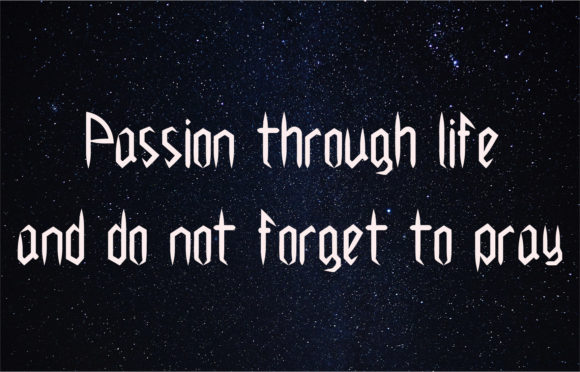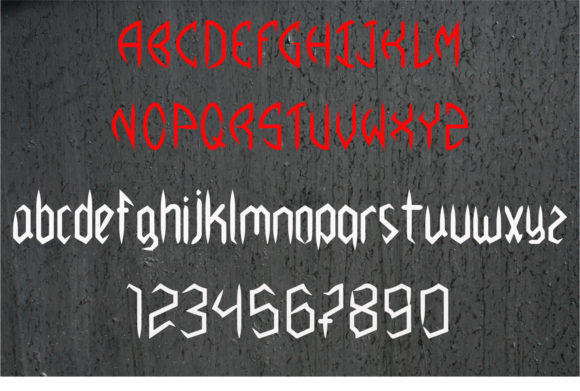
Introduction to Snap Z Font
Have you ever been working on a creative project, pouring your heart and soul into a design, only to realize you’re missing that one special element to make it truly pop? For designers, that moment of clarity can be a game-changer. And that’s exactly what the Snap Z Font is designed to do – add a dash of personality to your next flyer, logo, poster, or game.
As a versatile display font, Snap Z Font is the perfect design resource for any creative project. With its high-quality, transparent background, you can rest assured that your designs will stand out from the crowd. Whether you’re working on a book cover, a marketing campaign, or a fun project for kids, this font is sure to bring a smile to your face and a touch of whimsy to your designs.
Key Features of Snap Z Font
- High-quality font with a unique, creative design perfect for various projects
- Features a transparent background, making it ideal for use on various backgrounds and designs
- Designed with a high resolution of 300 DPI, ensuring crisp and clear text display
- Includes a comprehensive character set, including uppercase and lowercase letters, numbers, and punctuation marks
Honest Review: Snap Z Font
I recently came across the Snap Z Font and I must say, it’s been a game-changer for my creative projects. The font is available for a free download, which is always a plus when it comes to finding high-quality design resources.
One of the standout features of the Snap Z Font is its versatility. It’s perfect for a wide range of creative projects, from graphic design to digital art. The font also features a transparent background, making it easy to customize and layer with other design elements.
- High-quality design with crisp lines and clean typography
- Perfect for creative projects, including graphic design, digital art, and more
- Some users may find the font to be a bit too modern or edgy
- Not ideal for traditional or formal design projects
Overall, I’m thoroughly impressed with the Snap Z Font. It’s a high-quality design resource that’s perfect for creative projects. With its versatility, transparent background, and crisp typography, it’s a must-have for any designer’s toolkit.
Working with Snap Z Font
One of the benefits of Snap Z Font is its transparent background, making it easy to use in designs with complex backgrounds. Additionally, the font is high quality, making it perfect for use in creative projects. To get the most out of Snap Z Font, try using it in combination with other design elements, such as images and graphics. This will help to create a visually appealing design.
Snap Z Font is a versatile font that can be used in a variety of creative projects, including graphic design, digital art, and typography. Some common use cases include:
- Headlines and titles
- Body text
- Brochure and flyer design